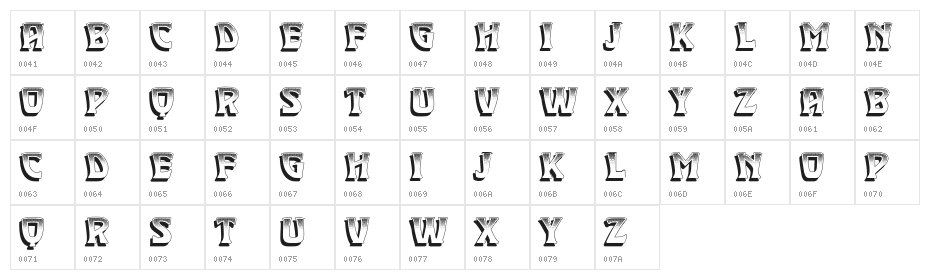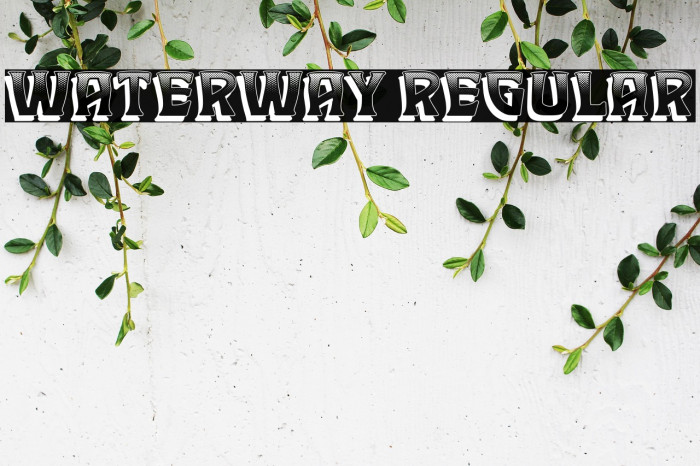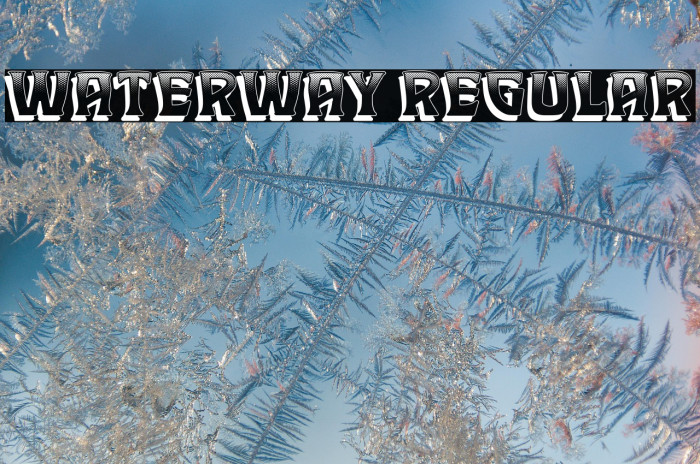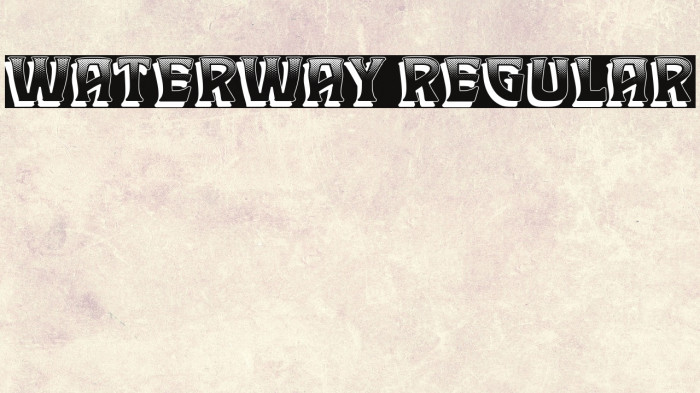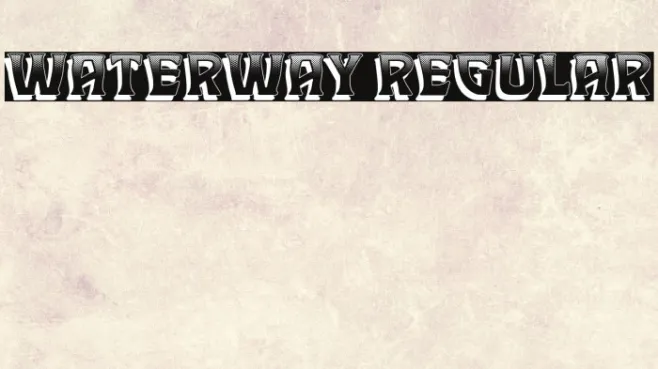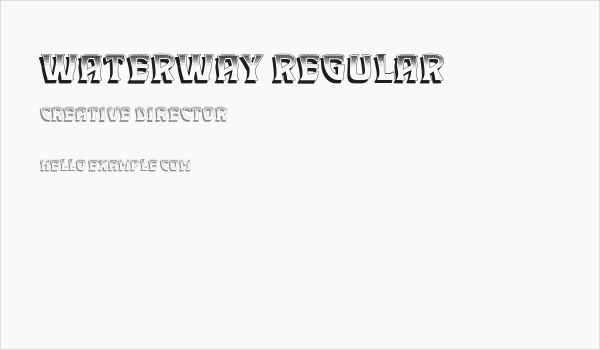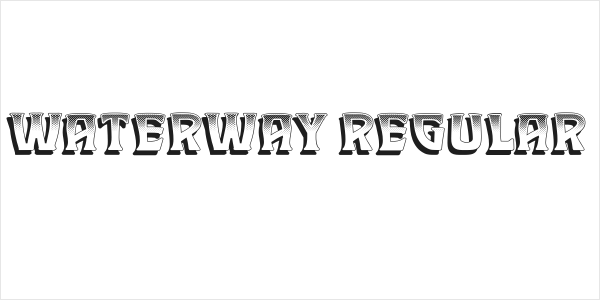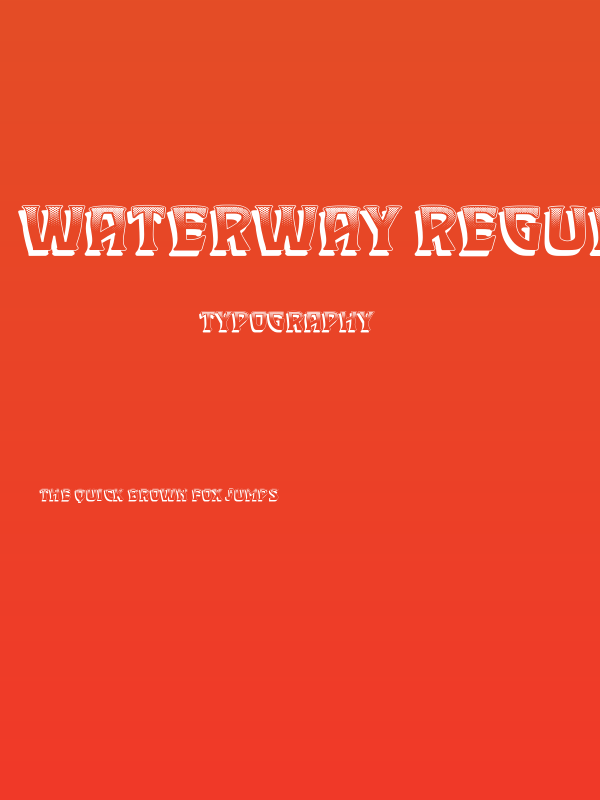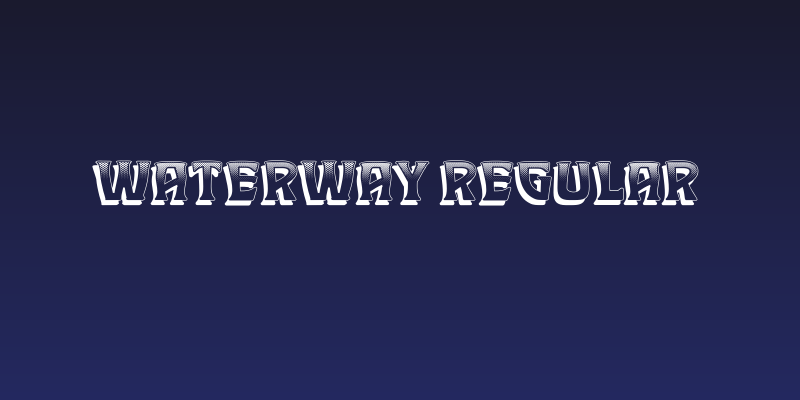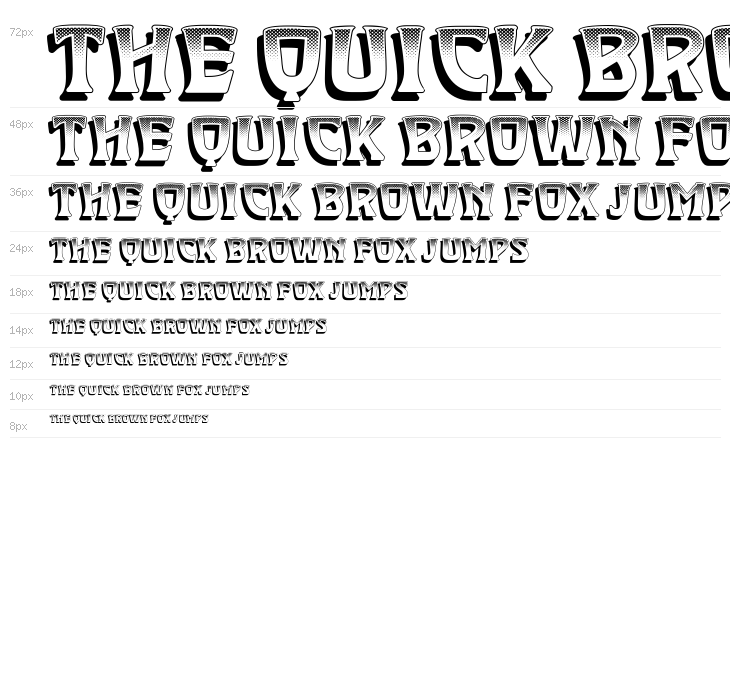
Waterway Regular Font
Waterway Regular Description
This font features a bold and decorative style with a three-dimensional effect. The letters are outlined with a shadow that gives them a lifted appearance, adding depth and a sense of movement. The uppercase characters are designed with a unique pattern that resembles a halftone texture, creating a vintage comic book feel. The font is highly stylized, making it suitable for eye-catching designs. Its boldness and intricate detailing make it stand out, ideal for projects that require a strong visual impact.
| Overall Style | Vintage, Decorative |
| Proposed Projects | Perfect for posters, logos, headlines, and any design needing a bold, vintage touch. |